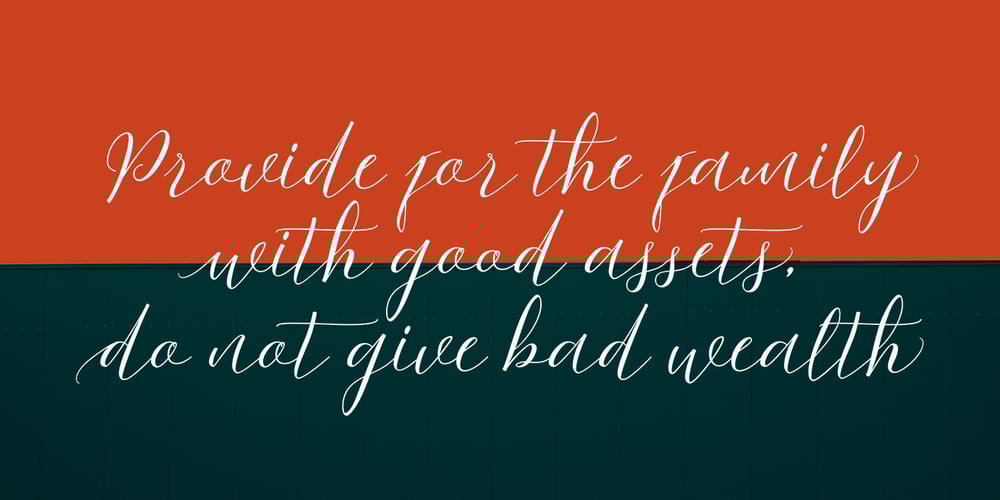
Westonia Font Family was designed by khaidir and published by Gatype. Westonia contains 1 styles and family package options. Westonia Script is modern script font, every single letters have been carefully crafted to make your text looks beautiful. With modern script style this font will perfect for many different project ex: quotes, blog header, poster, branding, logo, fashion, apparel, letter, invitation, stationery, etc. Westonia Script including alternate glyph and beautiful swirl.